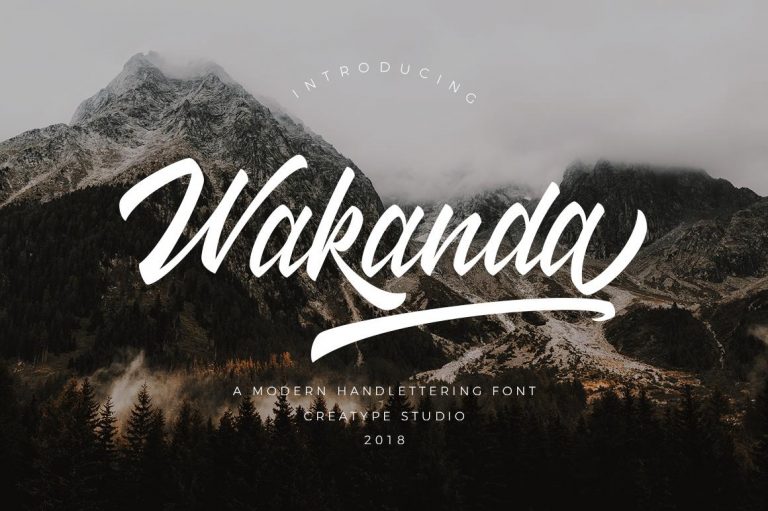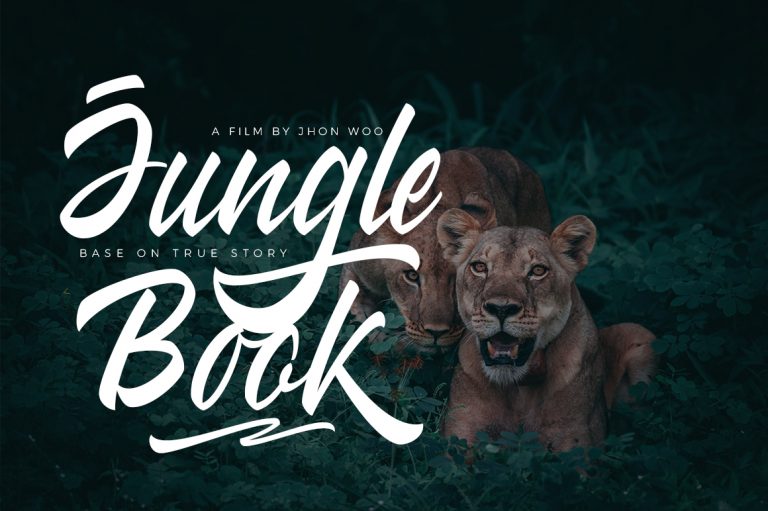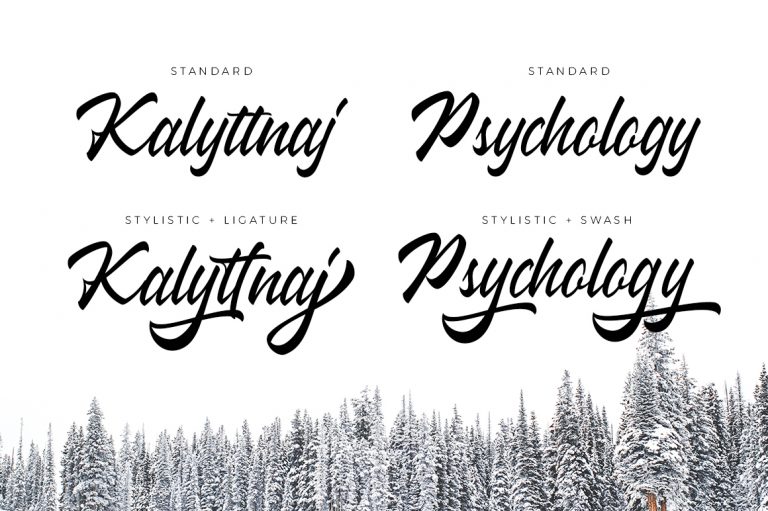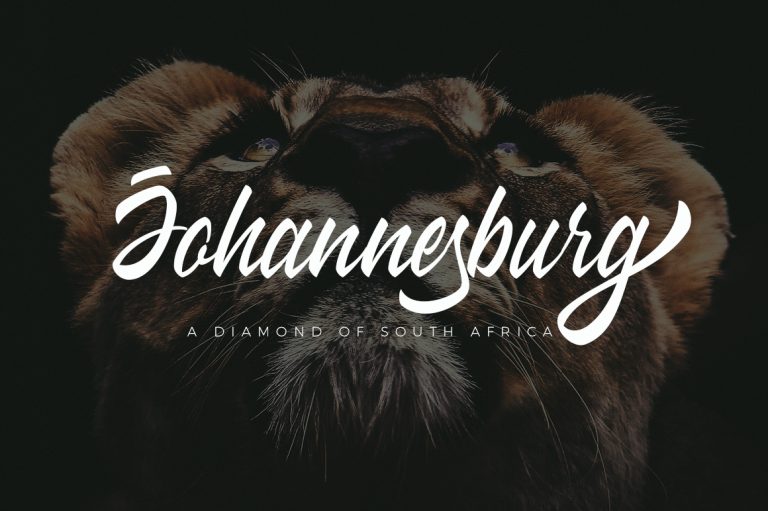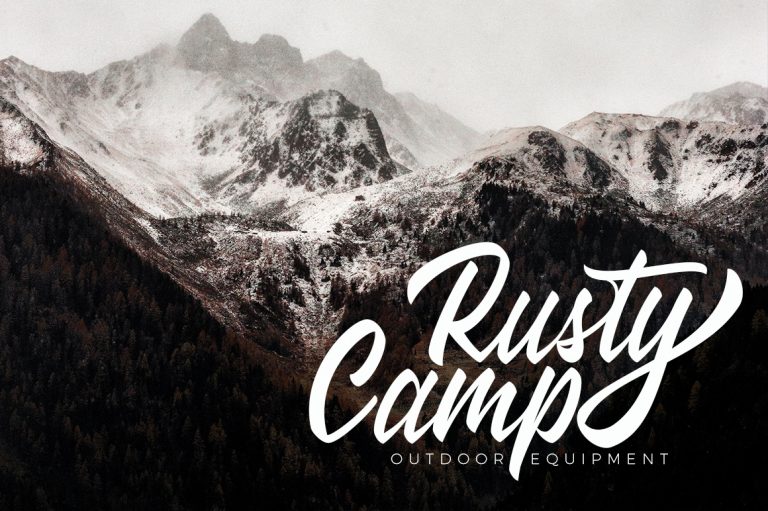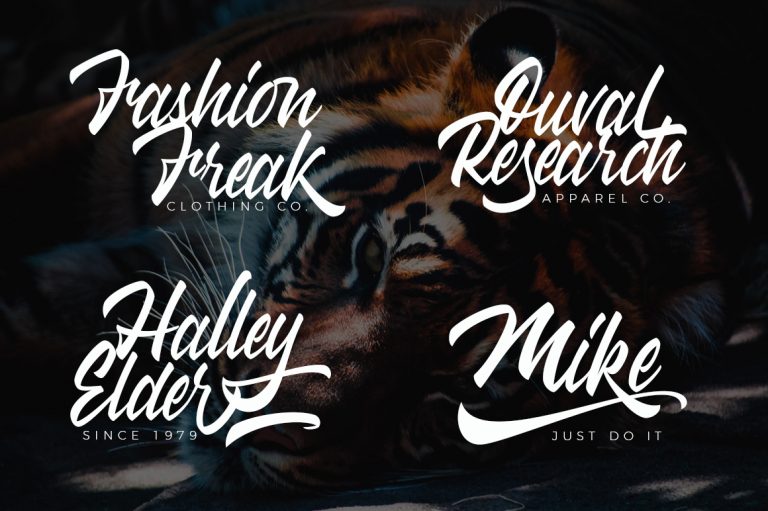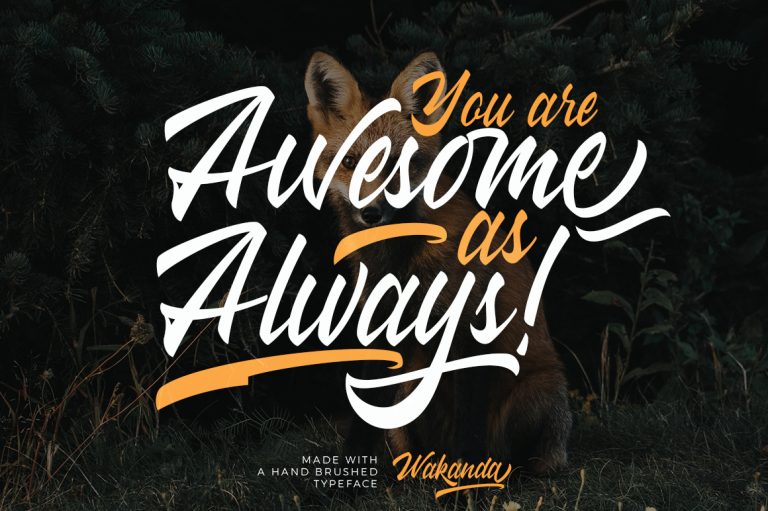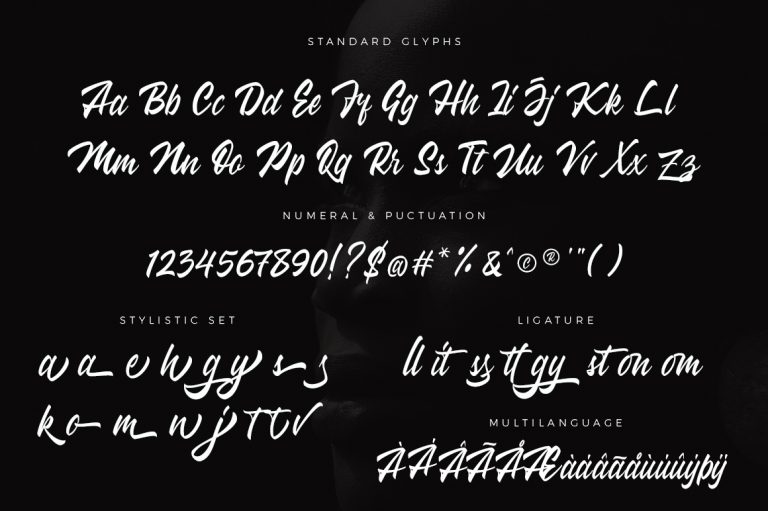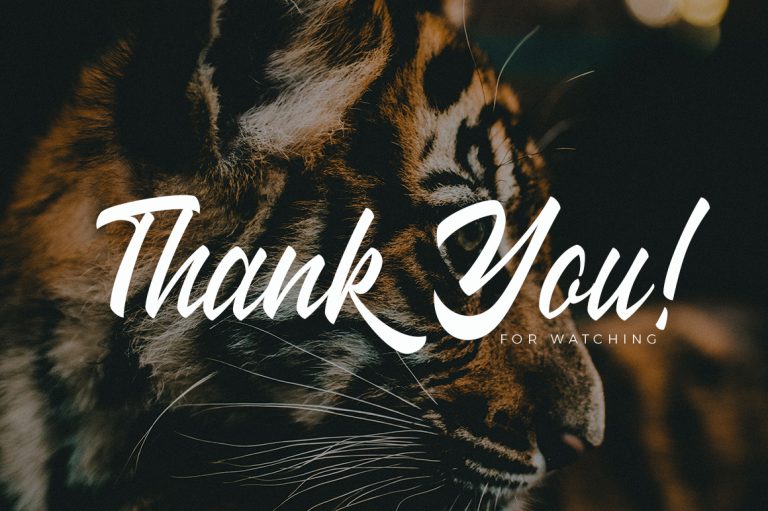
Wakanda Script
Wakanda – a stylish & modern handletter script typeface. This font will looks awesome and amazing in many way to your latest project.
Wakanda is perfect for many different project such as logos & branding, invitation, stationery, wedding designs, social media posts, advertisements, product packaging, product designs, label, photography, watermark, special events or anything.
- More than 240 of glyphs (include Uppercase, Lowercase, Numerals & Punctuations, Ligature, Stylistic, Swashes)
- Fonts include multilingual support for; Afrikaans, Albanian, Catalan, Danish, Dutch, English, French, Hungarian, Icelandic, Italian, Spanish, Portuguese, German, Swedish, Norweigen, Polish, Indonesian, Turkish, Zulu